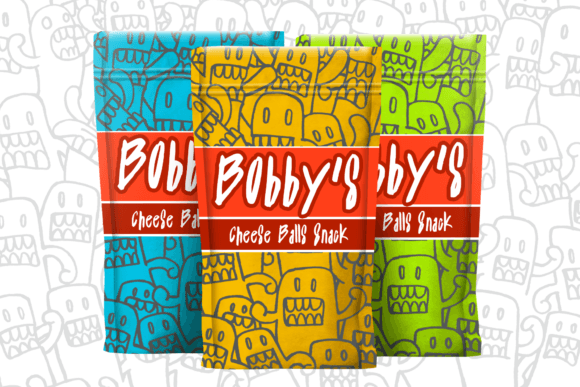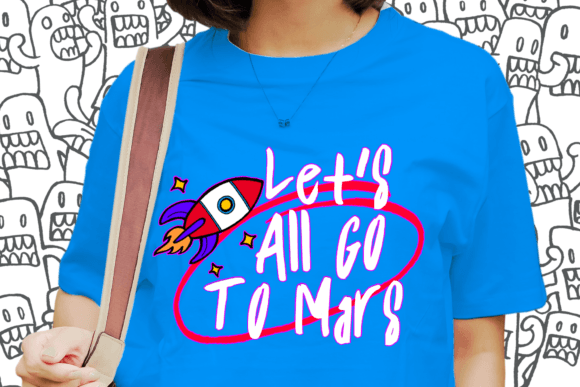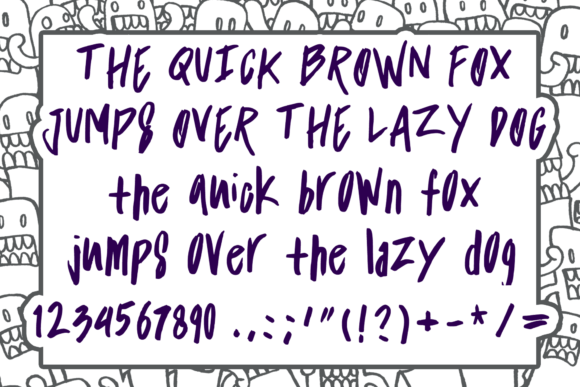
Introduction to Impulsive Marker Font
Impulsive Marker is a spontaneous and quick handwritten marker font, inspired by fun and fluid expressive energy of mankind.
It will elevate a wide range of design projects to the highest level You can use this font for many design ideas such as stickers, t-shirt designs, amazing logo designs, magazine or book covers, comics, cartoon drawings, and many more.